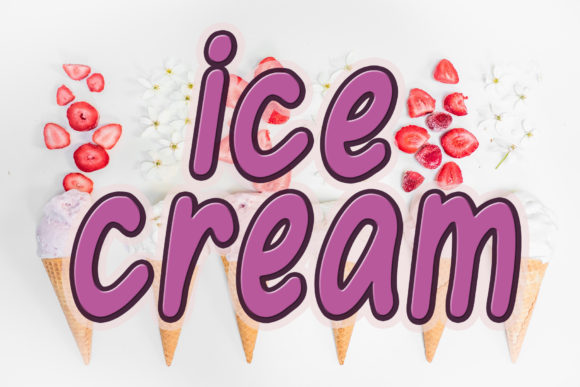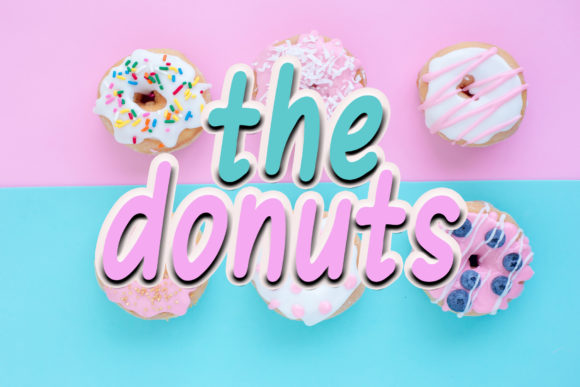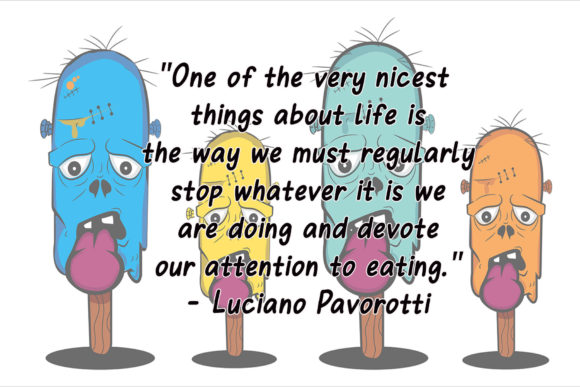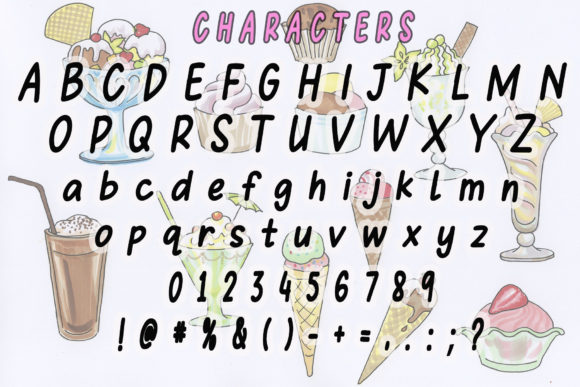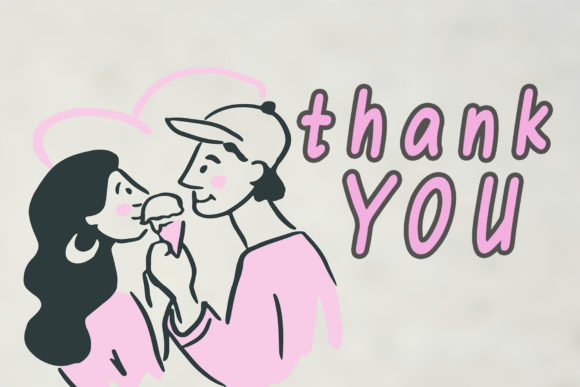
- ✅ Unique and playful character set that’s perfect for creative projects
- ⚠️ Some characters may not work well in all contexts (e.g., using the font for body text)
The Story Behind Gellato: Designer Inspiration
Gellato was designed by a team of creatives who wanted to create a font that would bring a smile to people’s faces. Inspired by the whimsical world of gelato shops and Italian cafes, they crafted a font that’s both playful and elegant. The result is a unique and versatile font that’s perfect for a wide range of design projects.
| Font Name | Gellato Font |
| Author | Projectype |
Q: What is Gellato Font?
A: Gellato Font is a cute, quirky, and fun display font designed for creative projects. It’s perfect for adding a playful touch to your designs.
Q: Is Gellato a script font?
A: No, Gellato is a display font with a unique, playful character set. While it has some cursive elements, it’s not a traditional script font.